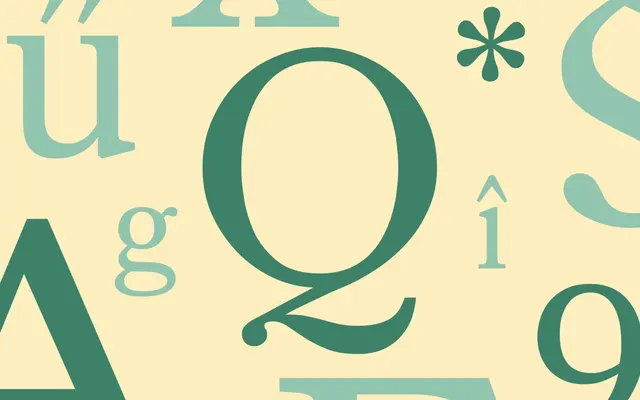
King's Caslon
Dalton Maag · Veronika Burian, Ron Carpenter · 2019
An elegant Caslon revival by Veronika Burian and Ron Carpenter, with text and display cuts and a much-loved ampersand.
A Caslon revival by Veronika Burian and Ron Carpenter that splits into four text styles and two display styles. Dalton Maag describes the family as joyously elegant, and the ampersand that runs through every cut has become its calling card. Reach for it on classical editorial, luxury identity and book work where you want Caslon's authority with contemporary drawing.
Dalton Maag classifies King's Caslon as an elegant revival of the Caslon typeface tradition, with four text styles and two display styles all carrying the family's iconic ampersand.